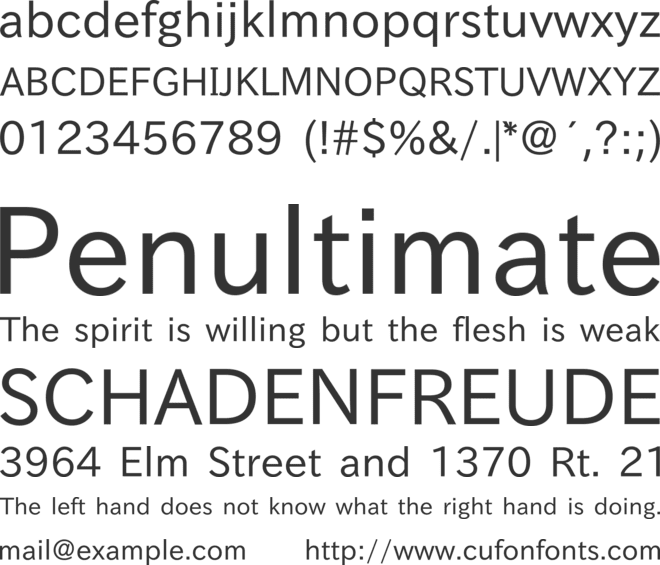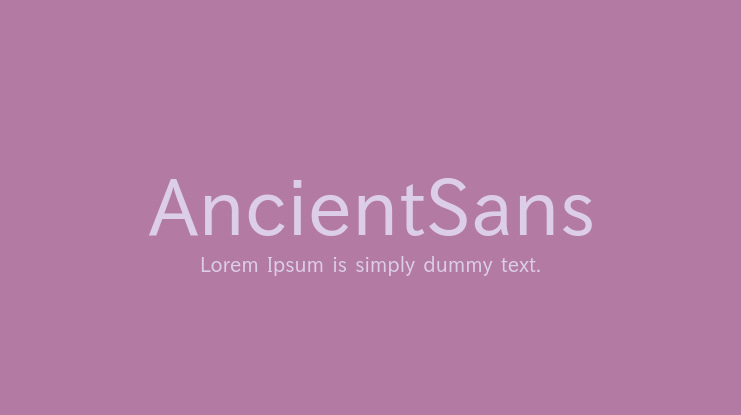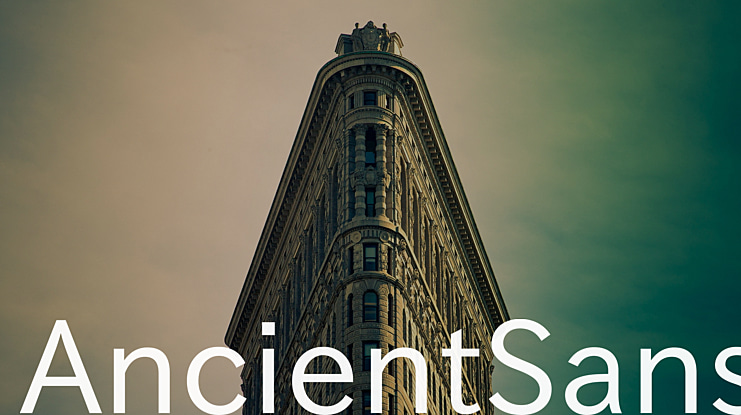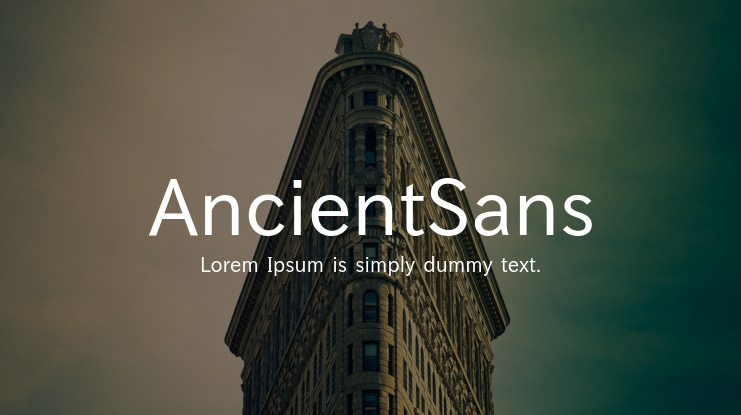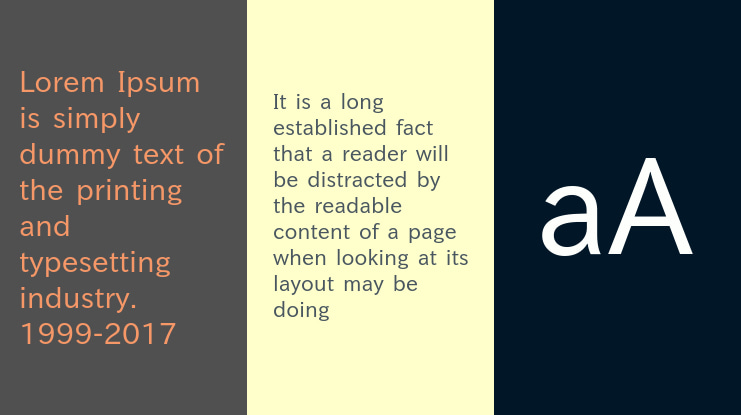
AncientSans Font
This font is a versatile pan-unicode typeface that includes characters from the Unicode SMP, as well as writing systems that are not supported on Windows.